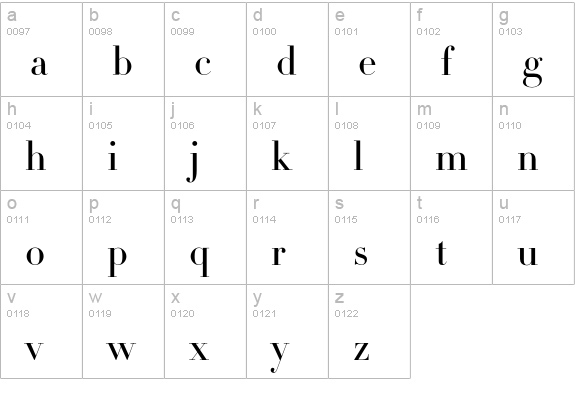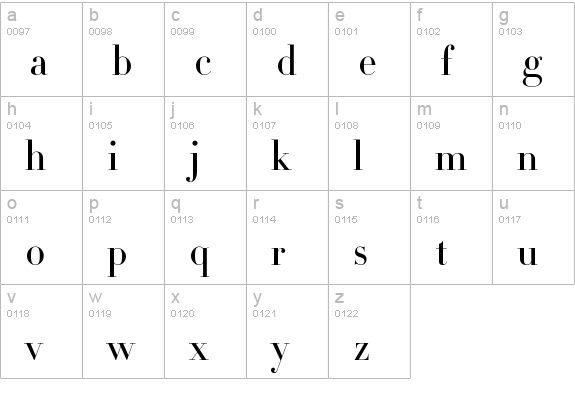
Didot-HTF-M24-Medium Font Details
Didot-HTF-M24-Medium is a balanced, medium-weight variant in the Didot typeface family \xE2\x80\x94 well suited to sub-headlines, navigation, and balanced editorial work.
Didot-HTF-M24-Medium is an elegant and sophisticated serif font that exudes timeless beauty and classic charm. With its sleek lines and graceful curves, this font is perfect for adding a touch of refinement to any project. Whether you're creating invitations, branding materials, or editorial designs, Didot-HTF-M24-Medium will elevate your work to new heights. The medium weight of this font strikes the perfect balance between boldness and delicacy, making it versatile for a wide range of design applications. Its clear and legible letterforms ensure readability across various platforms and media types. Best of all, Didot-HTF-M24-Medium is available for free download at FontsMarket.com. This means you can easily access this premium font without breaking the bank. Don't miss out on the opportunity to enhance your designs with the timeless beauty of Didot-HTF-M24-Medium. Download it today and elevate your creative projects to the next level.